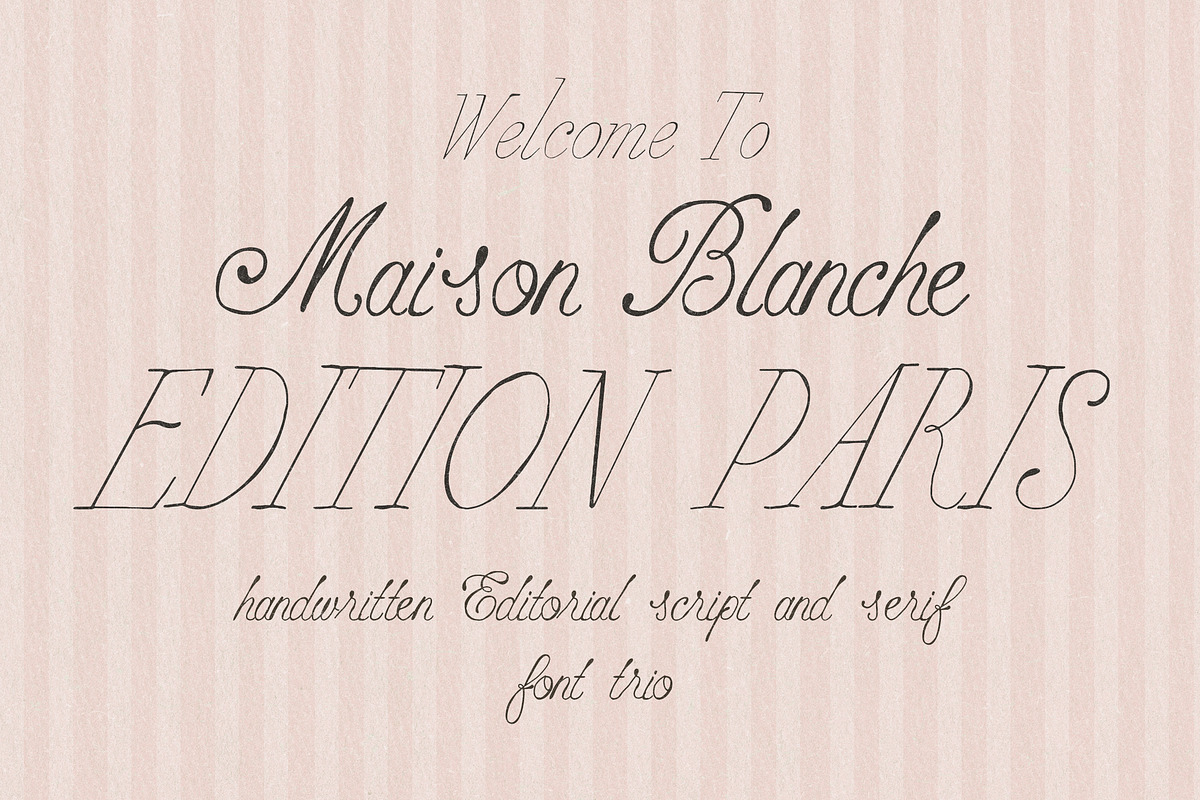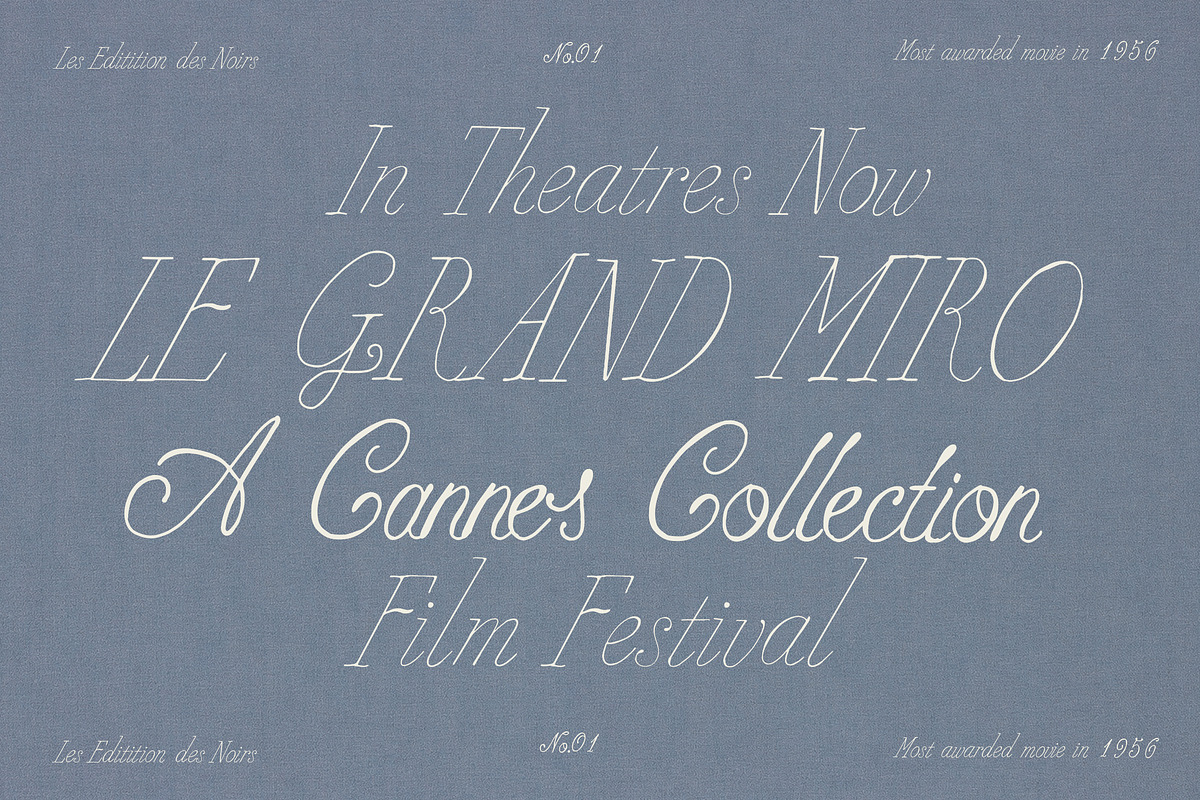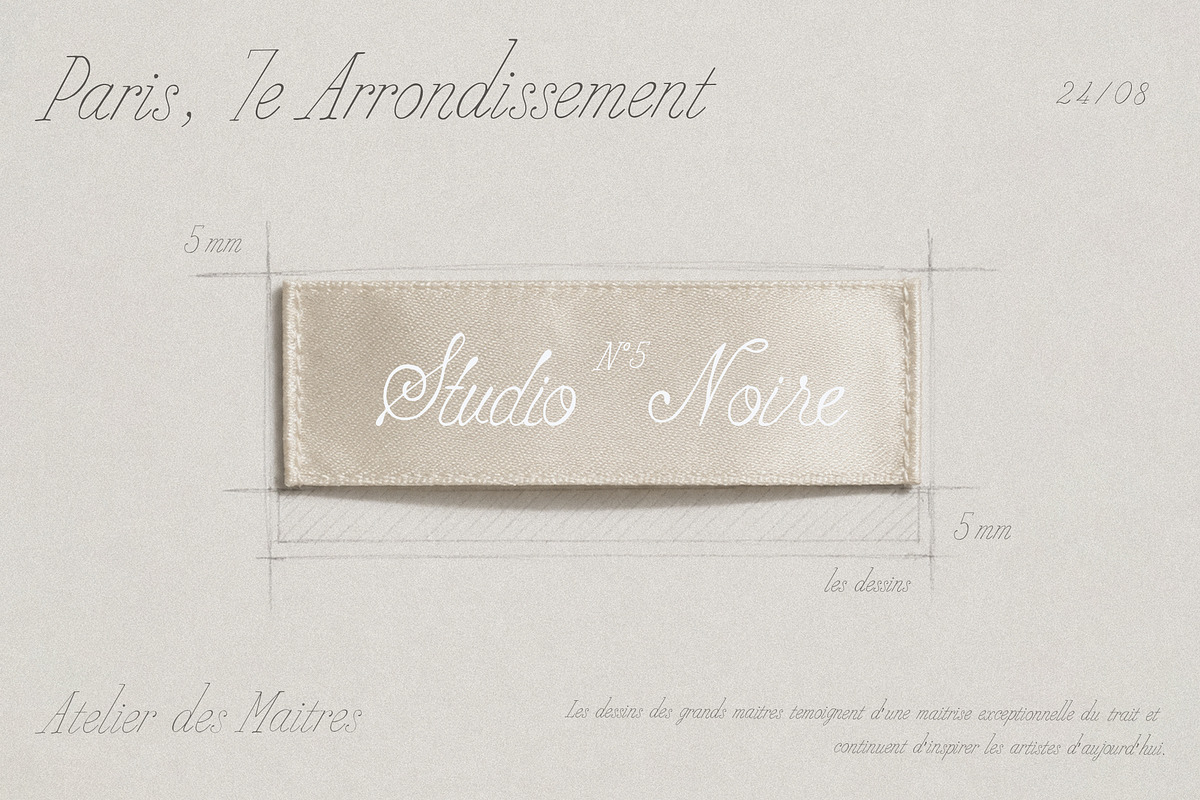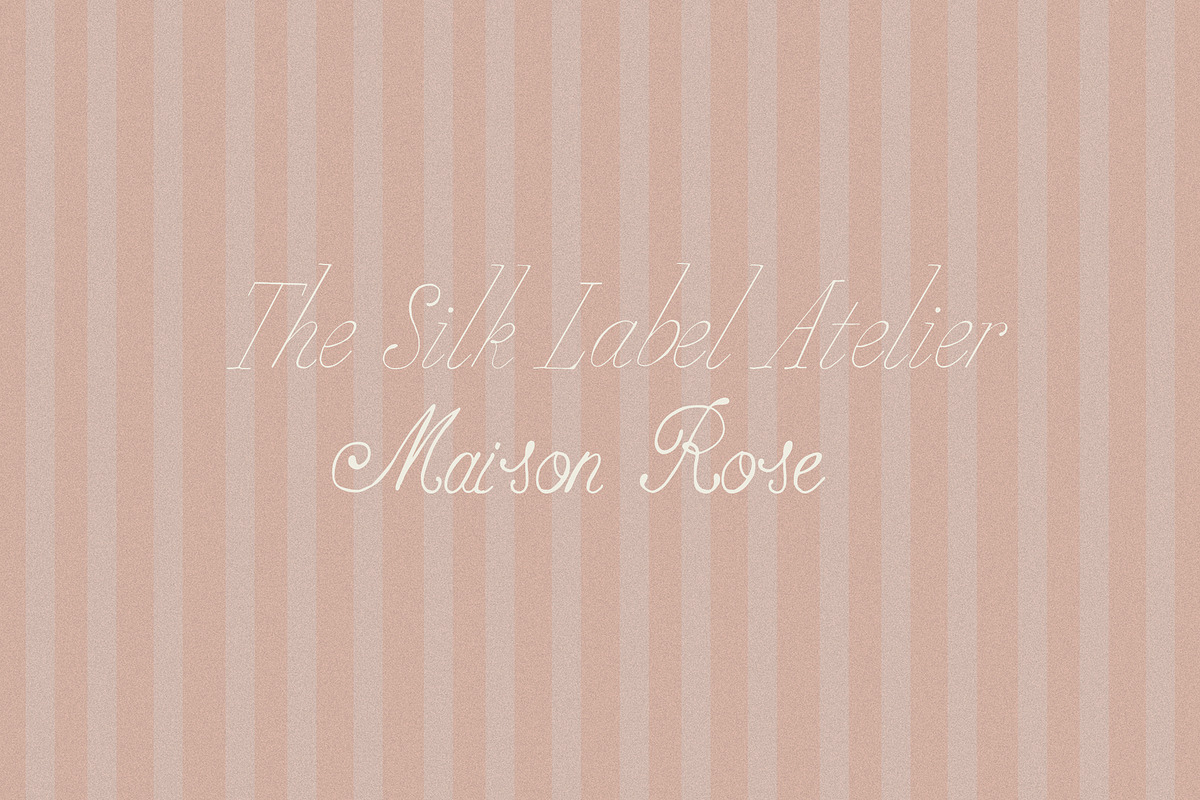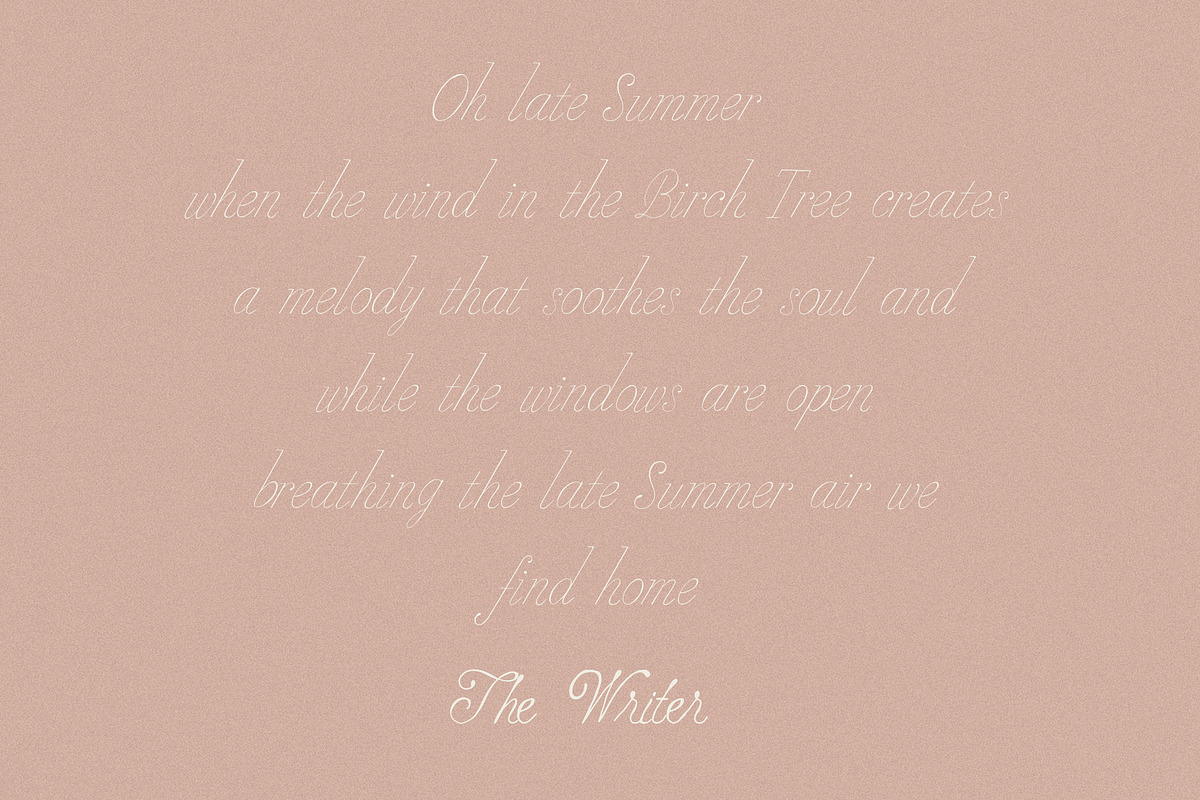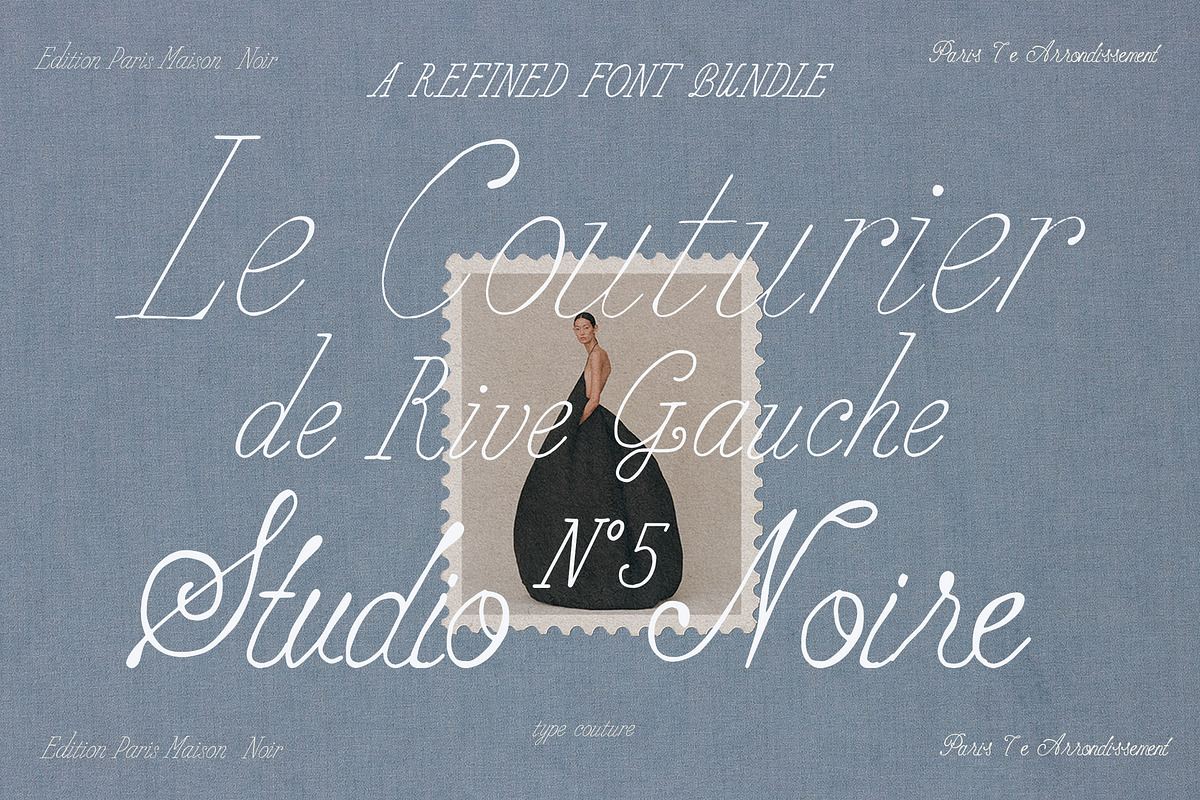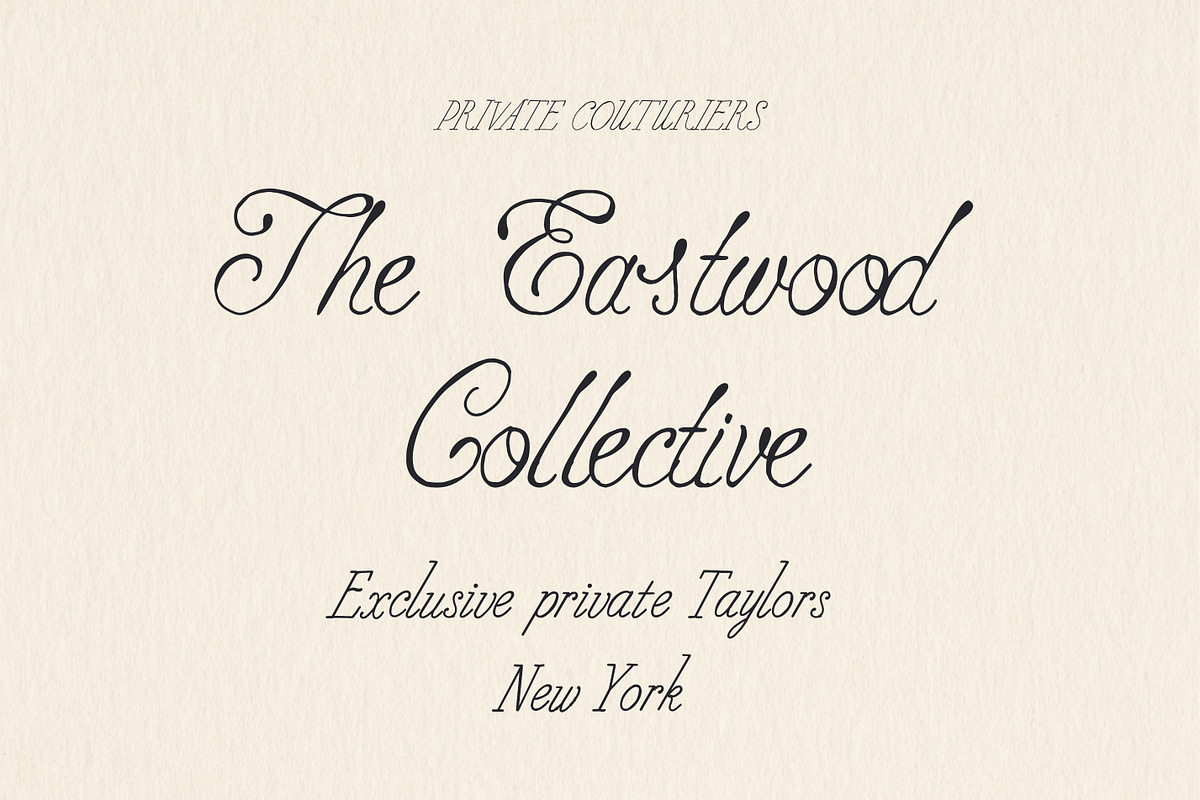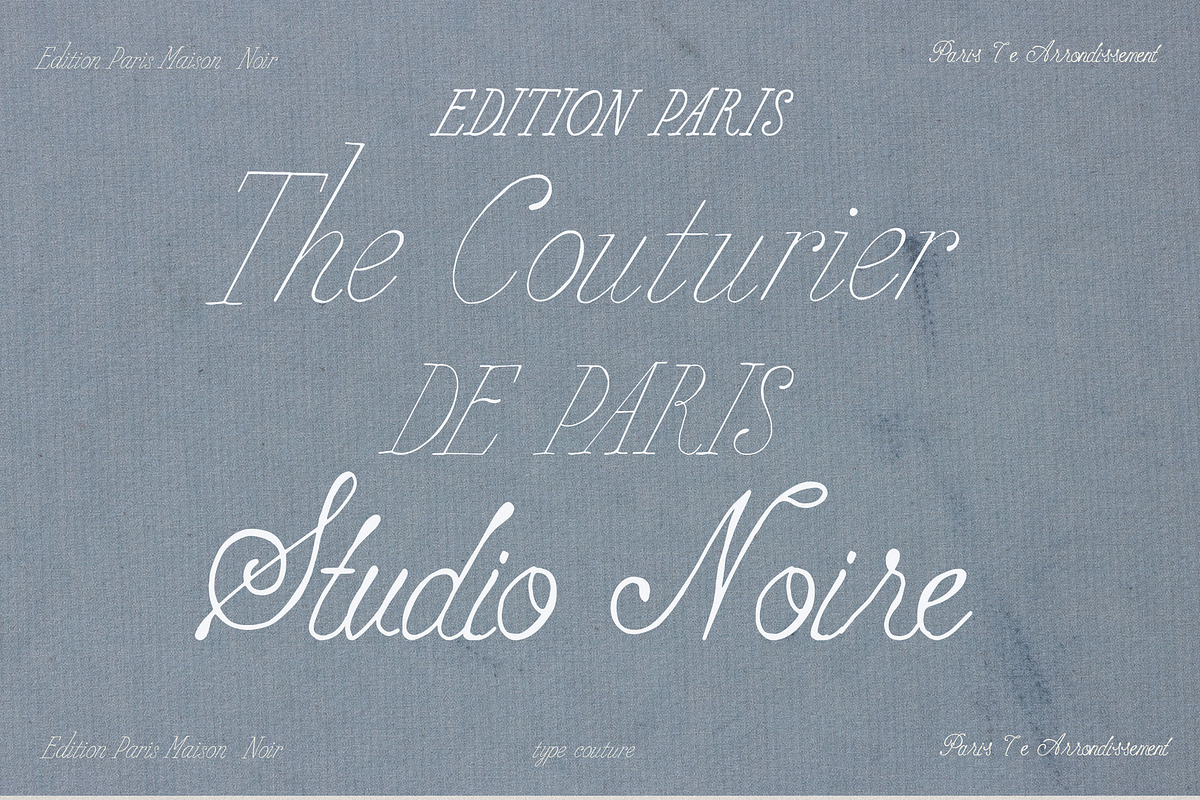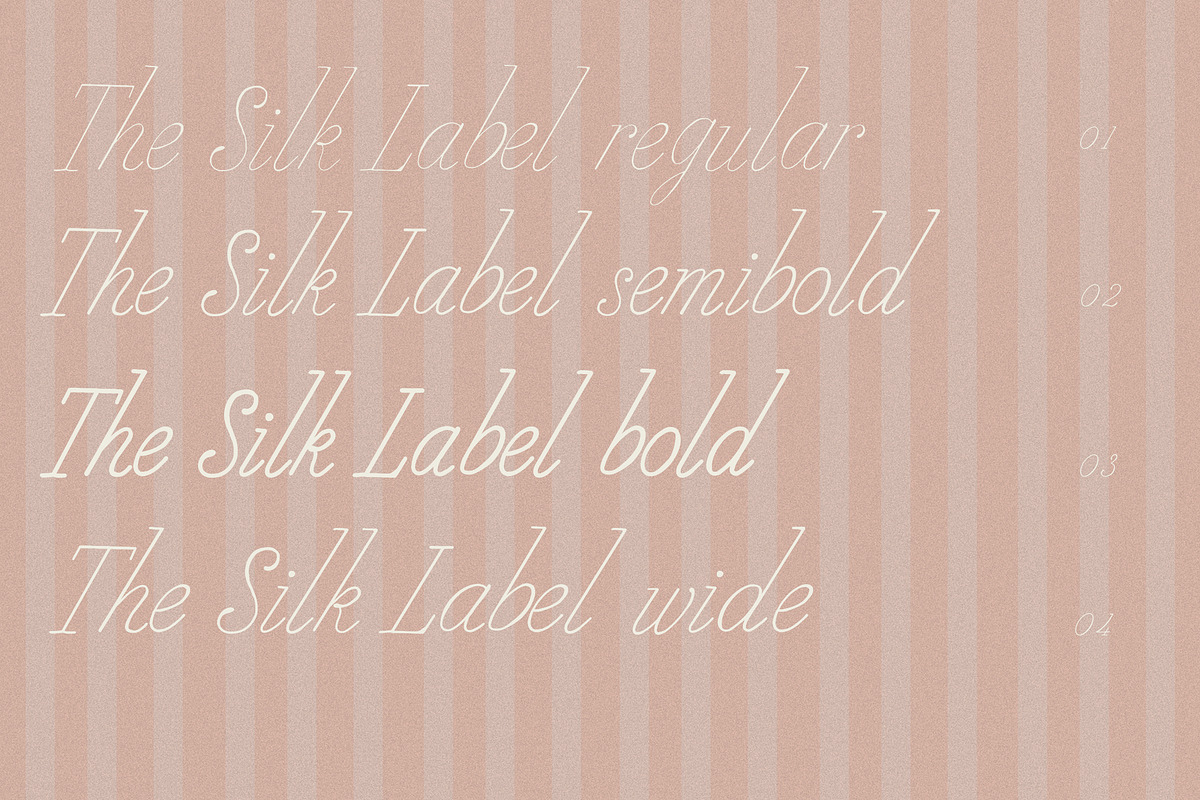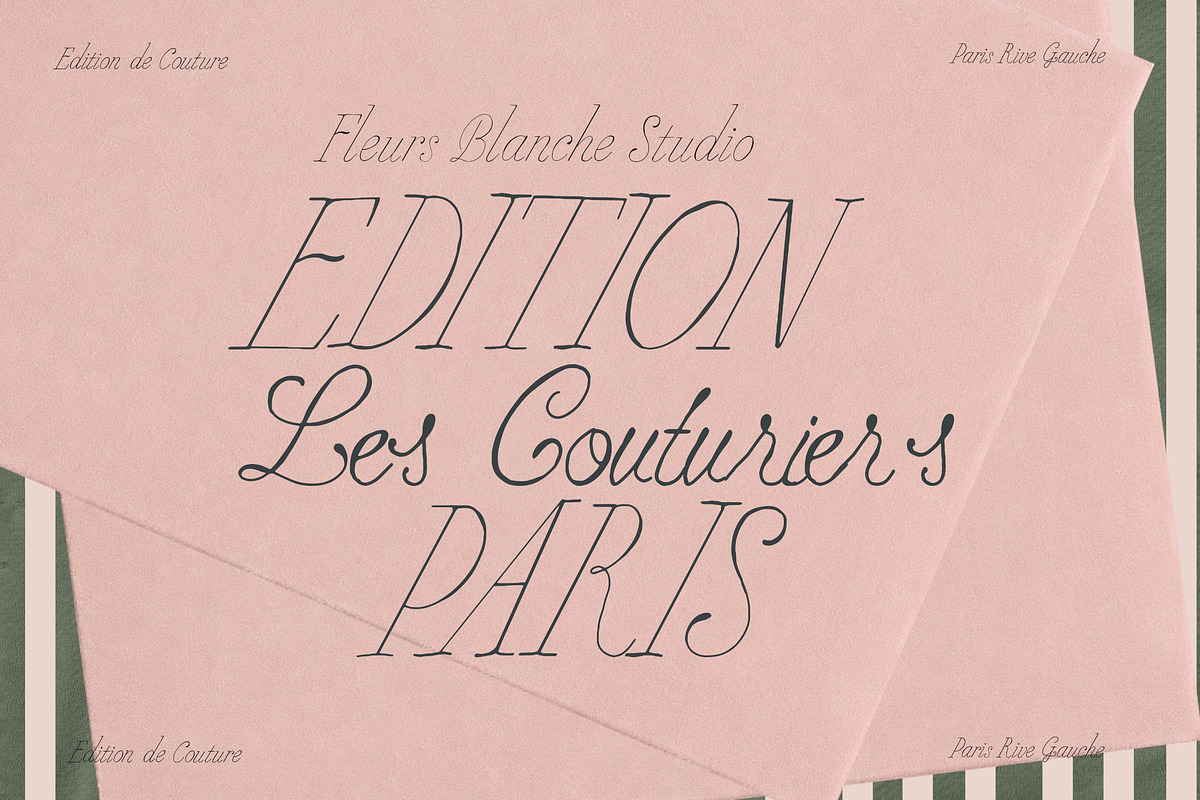
Handwritten Elegant Serif & Script
The Couturier is an elegant font duo inspired by the art of tailoring, haute couture ateliers, handwritten studio notes, and refined editorial typography. This sophisticated font family combines a sleek handwritten serif with delicate details and a beautifully irregular inky script, creating a timeless balance of polish and personality.
Designed in several weights, The Couturier is perfect for luxury branding, fashion logos, editorial design, boutique packaging, wedding stationery, magazine layouts, social media graphics, atelier branding, invitations, labels, and high-end visual identities.